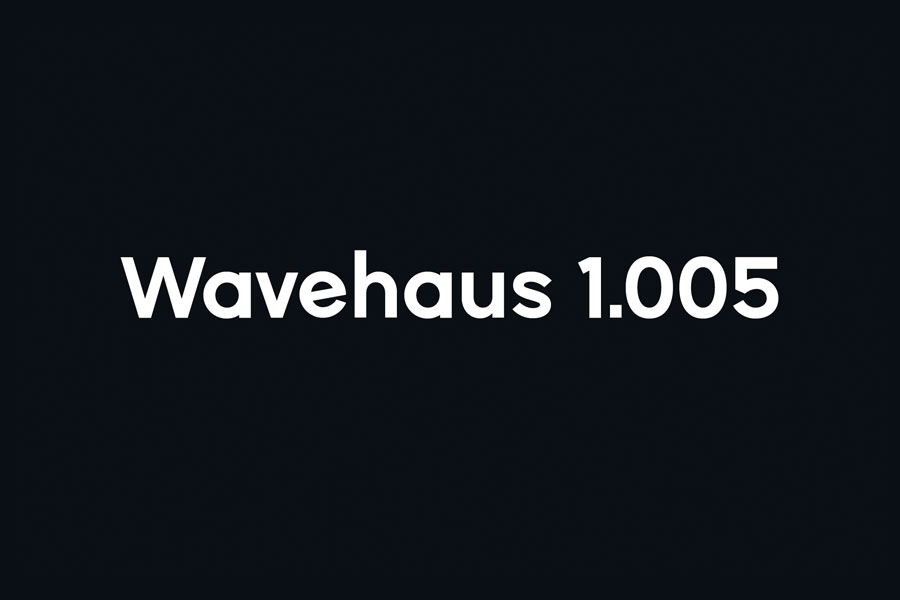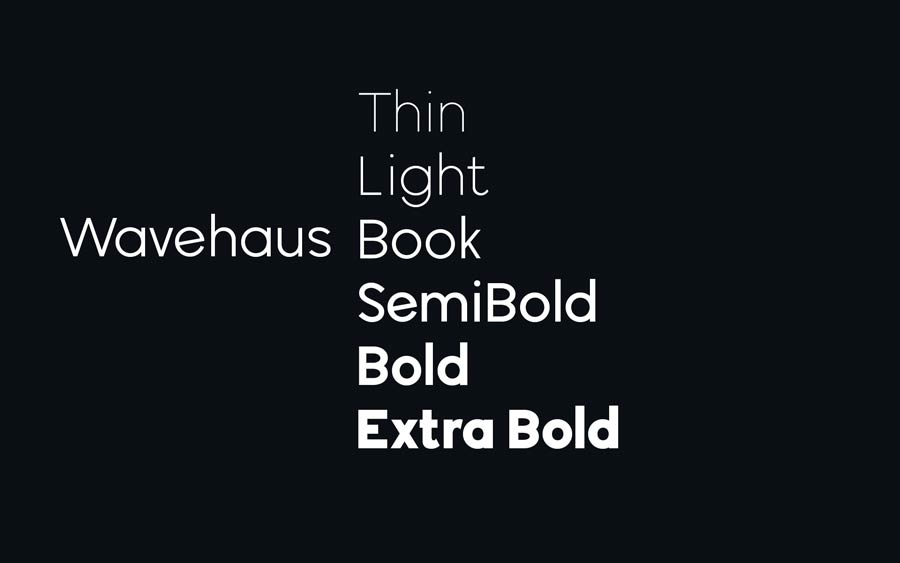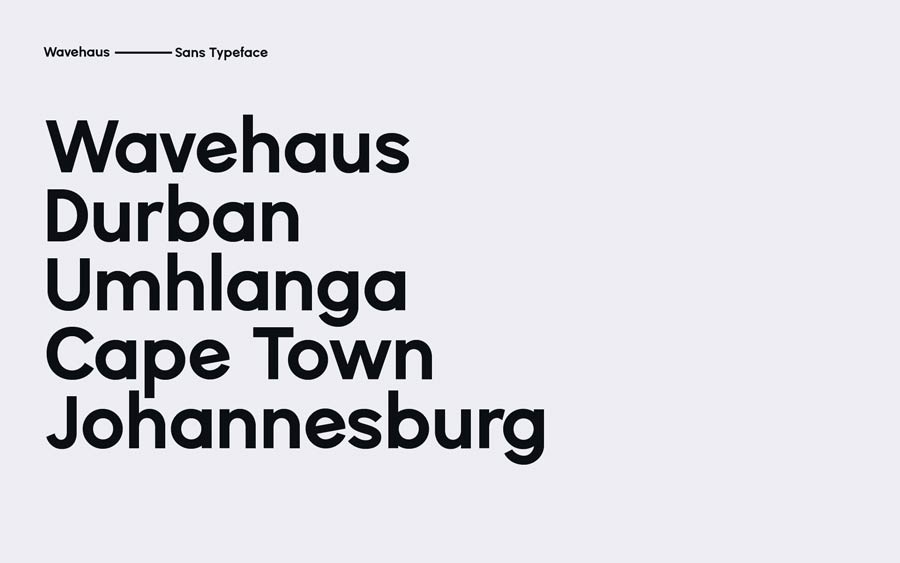
Wavehaus Sans is a geometrical sans serif that comes with 6 weights. This font reminds me of the Montserrat or Avant Garde font family, which has both modern and classic vibes to it. This font is perfect for clean design, signages, brand logo and typographical posters. It contains the usual suspects like lowercases, uppercases, numerals, punctuations and other common symbols.
- Designer: Graham Paterson
- Styles: 6
- Category: Sans Serif